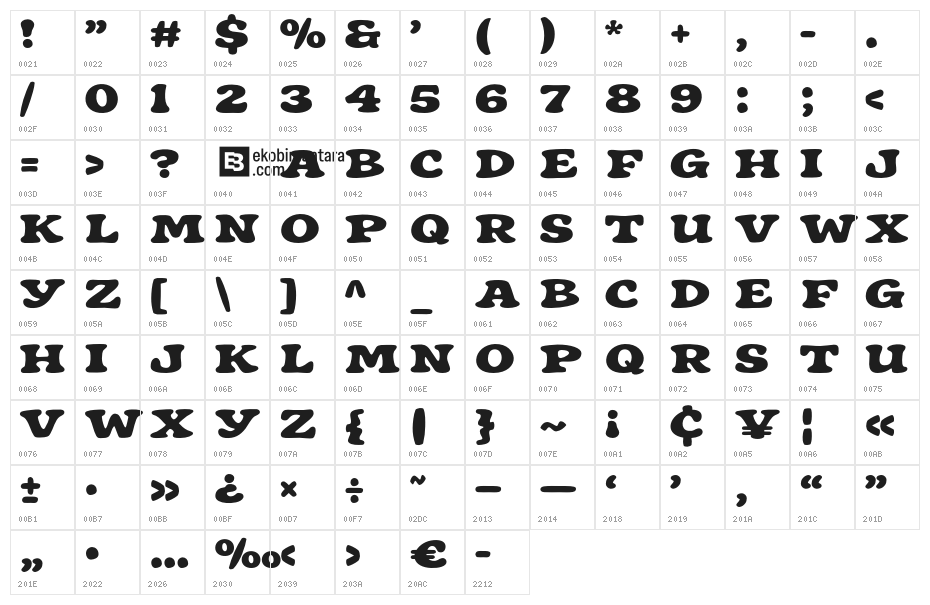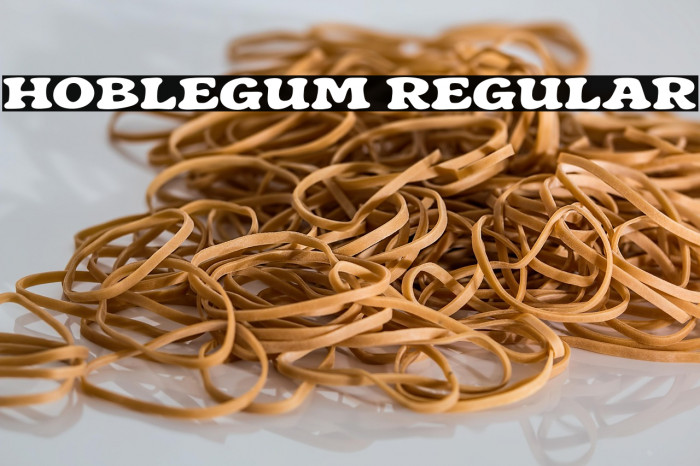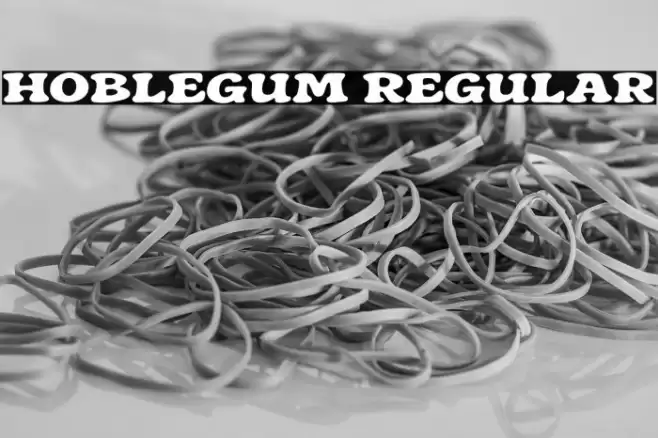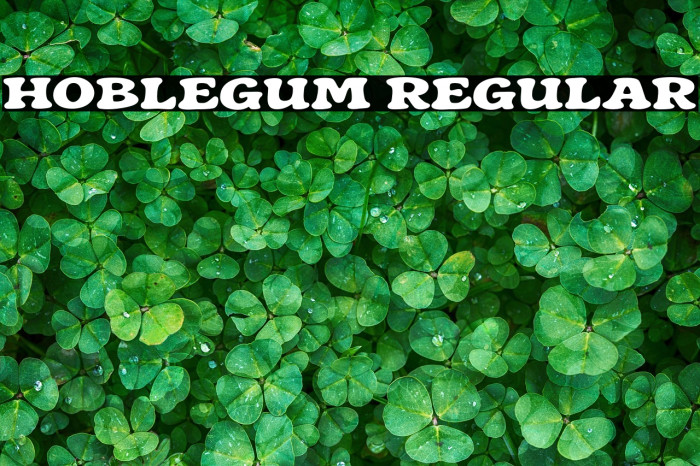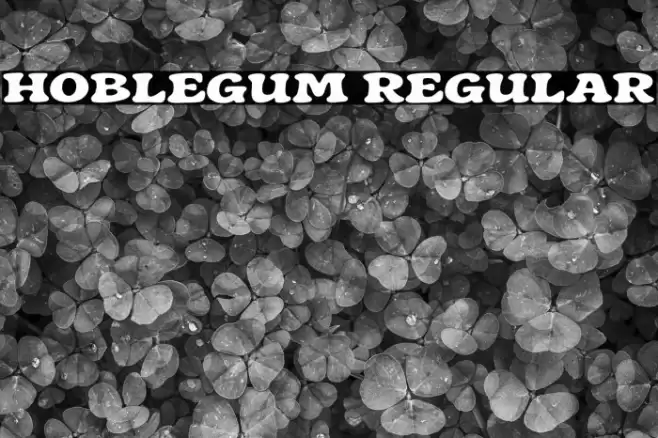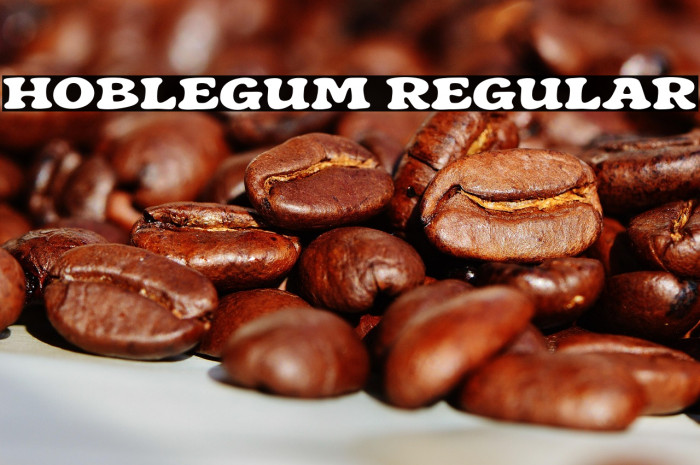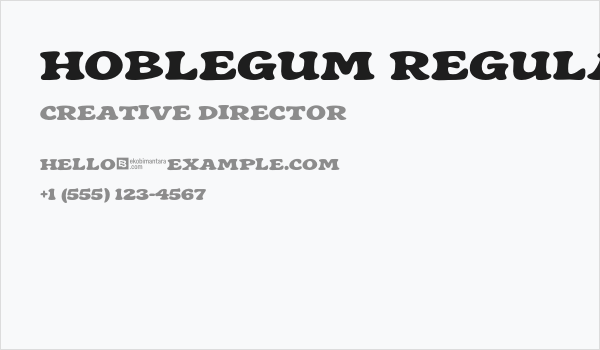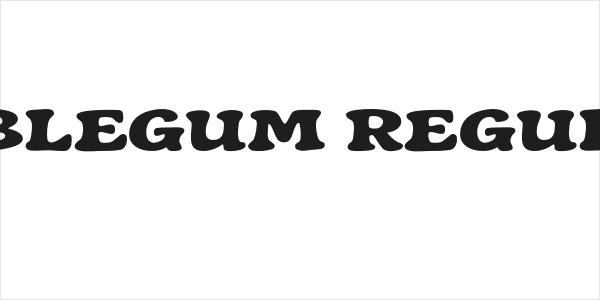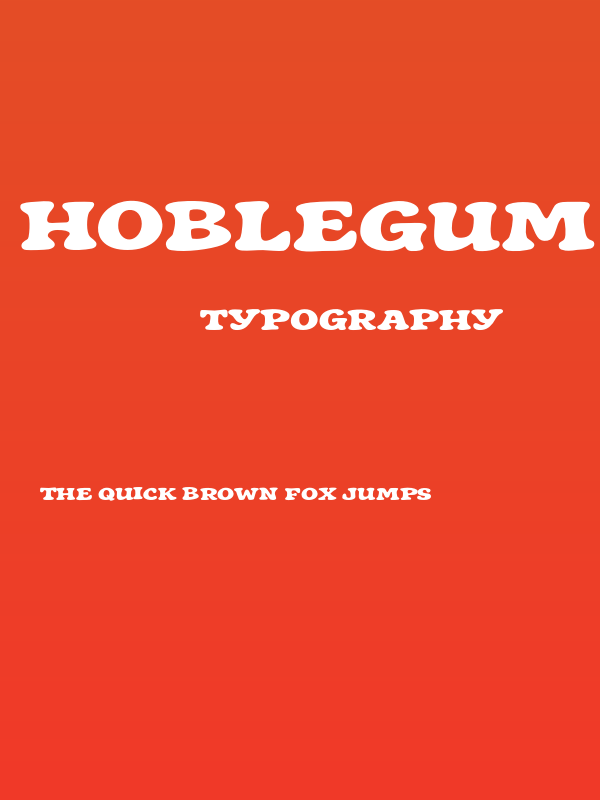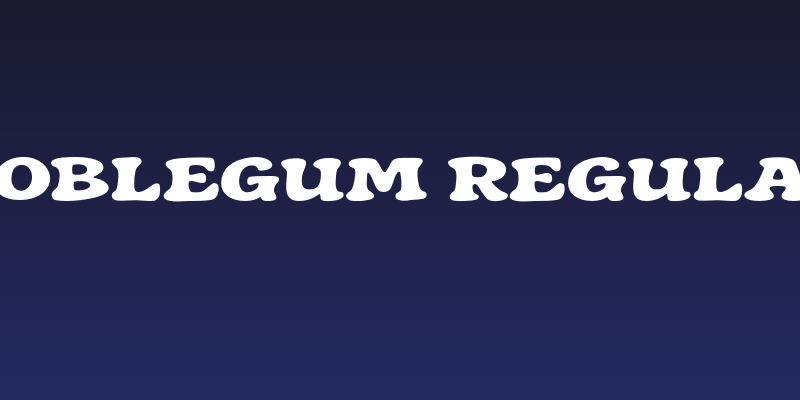
Hoblegum Regular Font
Hoblegum Regular Description
This font features a bold and playful design, characterized by its thick, rounded strokes and whimsical appearance. The letters are uniformly wide, giving a sense of balance and stability. The overall style is reminiscent of retro or vintage aesthetics, with a touch of modern flair. The characters are well-spaced, ensuring readability while maintaining a fun and engaging look. This font is ideal for projects that require a lively and eye-catching typeface.
| Overall Style | Vintage, Decorative |
| Proposed Projects | Perfect for posters, children's books, branding, and any project needing a fun, retro vibe. |